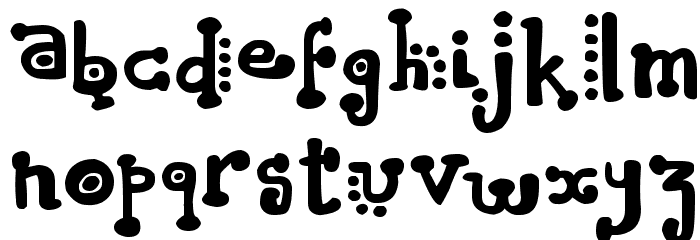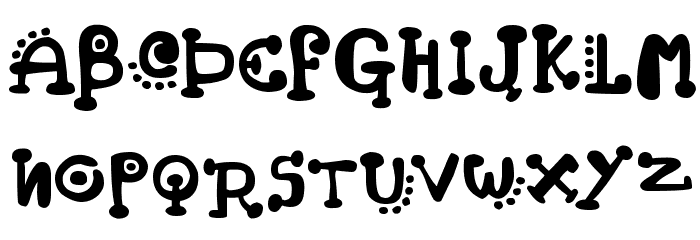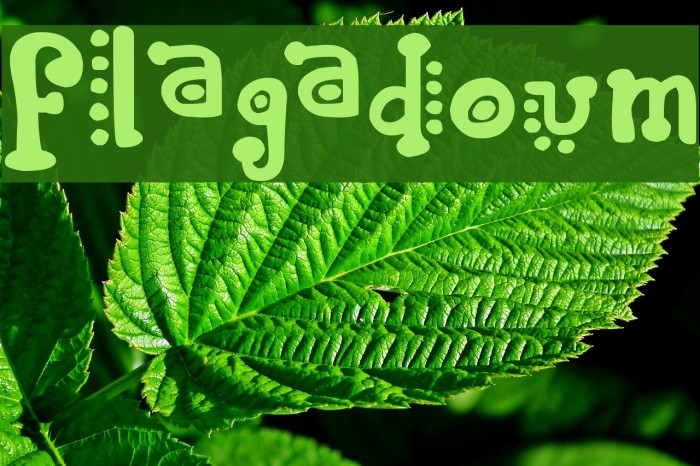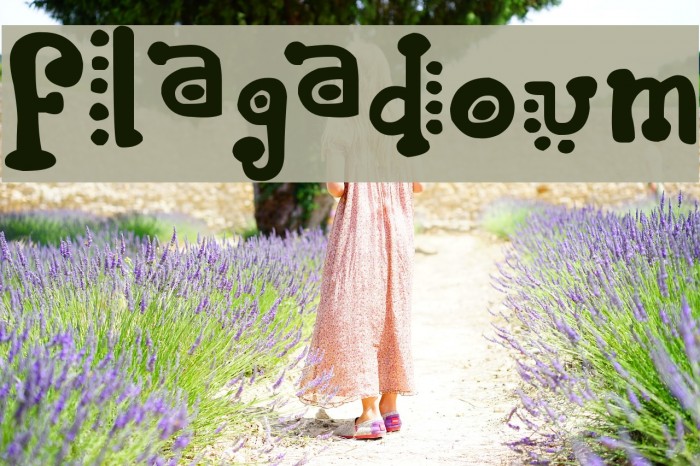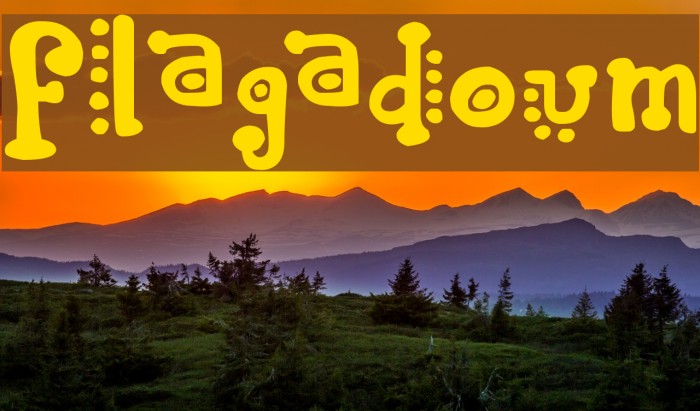
Flagadoum Font
This playful and whimsical font features a unique design with circular and dot embellishments that give it a lively and animated appearance. The characters are bold and rounded, with a consistent thickness that adds to its playful nature. The uppercase and lowercase letters maintain a cohesive style, with some letters incorporating decorative dots that enhance their visual appeal. The numbers and special characters follow the same design principles, ensuring uniformity across the font. This font's distinctive style makes it ideal for projects that require a fun and engaging look.
A playful, whimsical font with bold, rounded characters and decorative dot embellishments.
- Proposed Projects: Ideal for children's books, playful branding, party invitations, and creative posters.
- Overall Style: Playful, Whimsical
- Use Case: Logos, Posters, Invitations